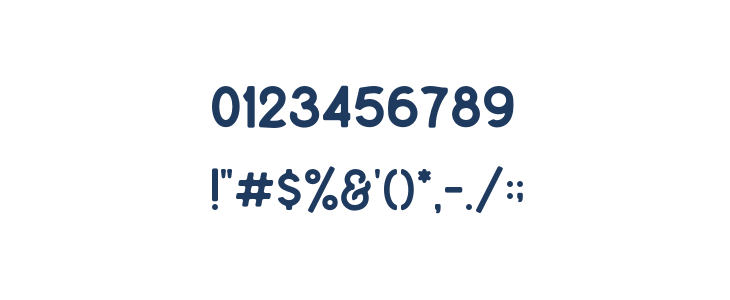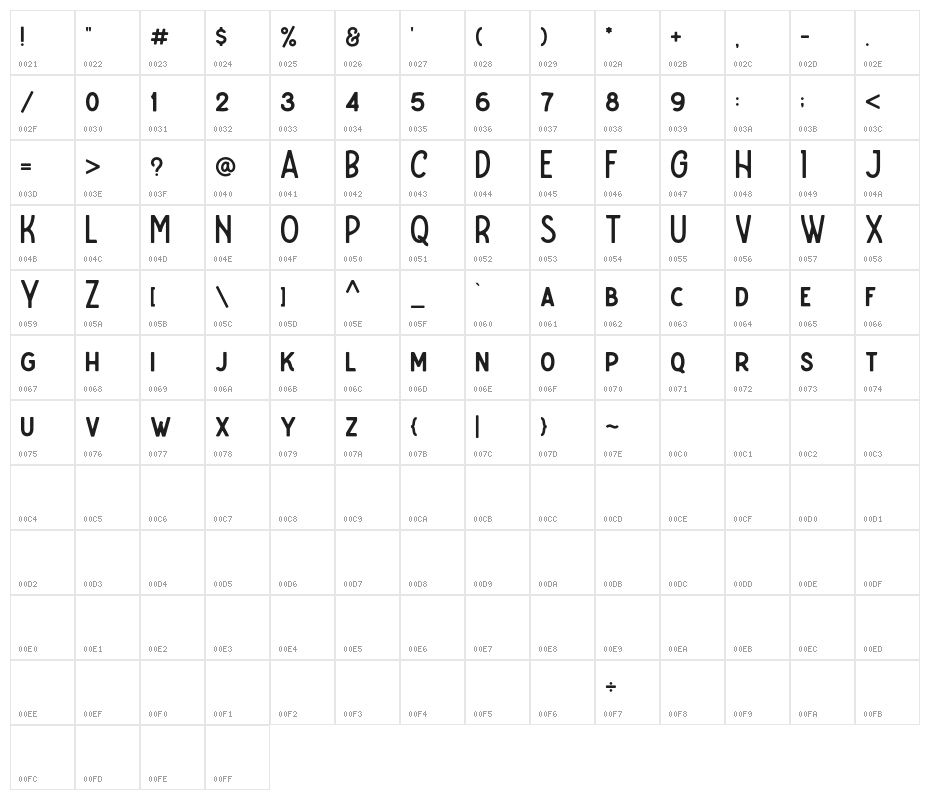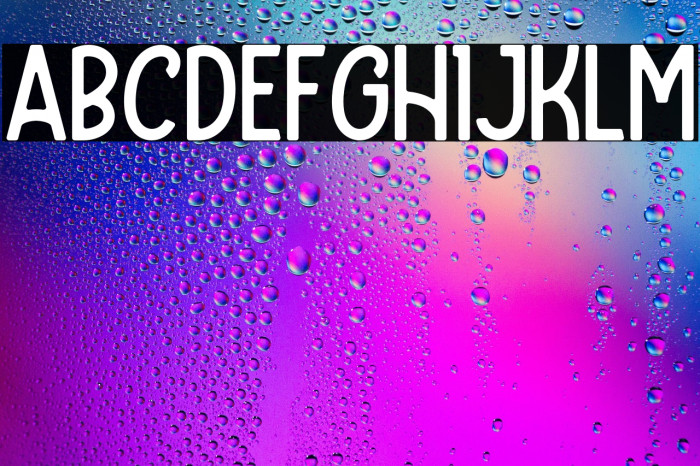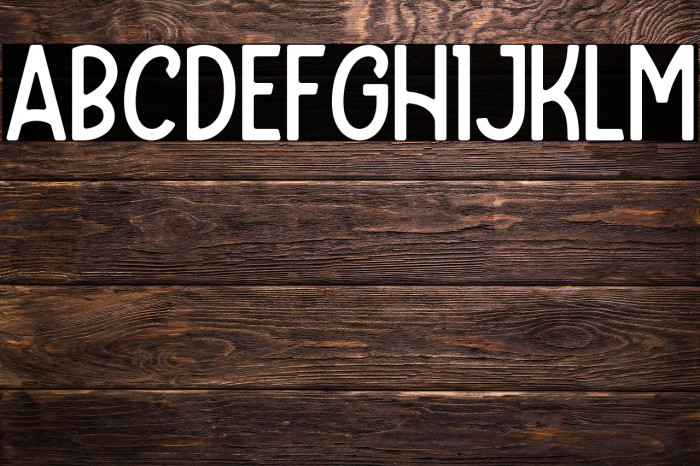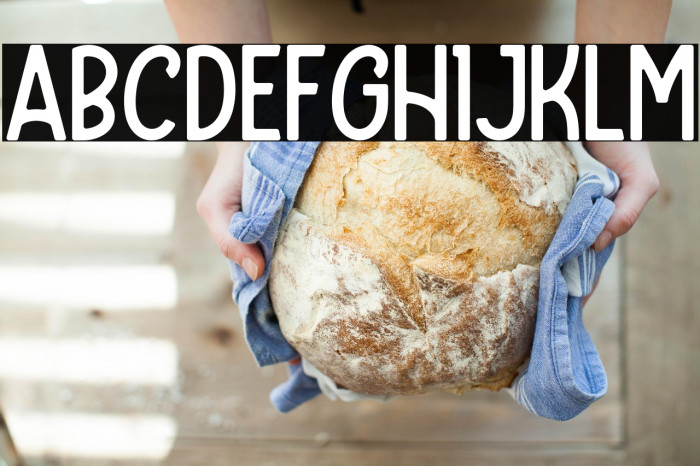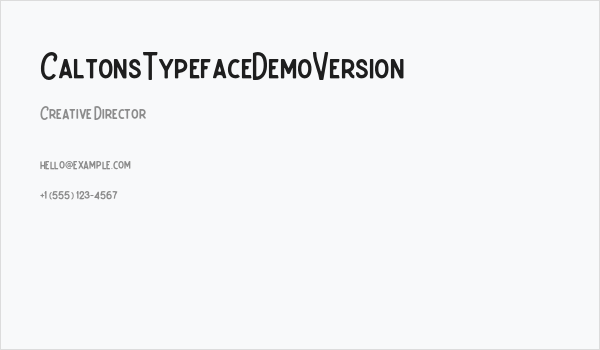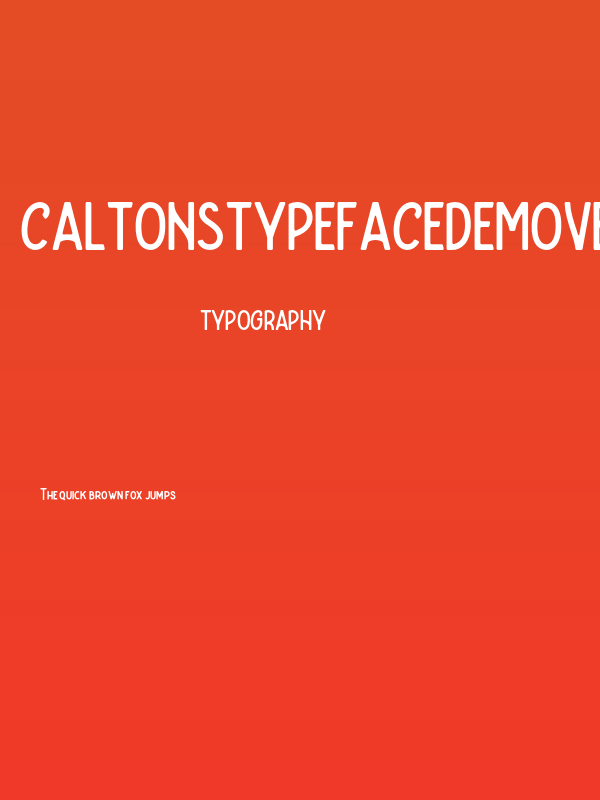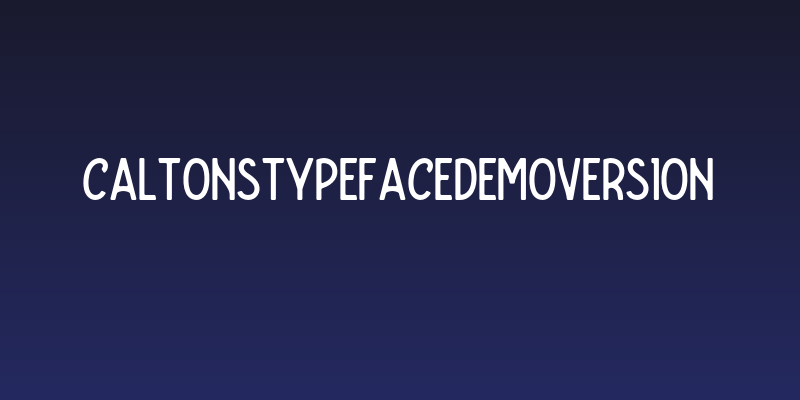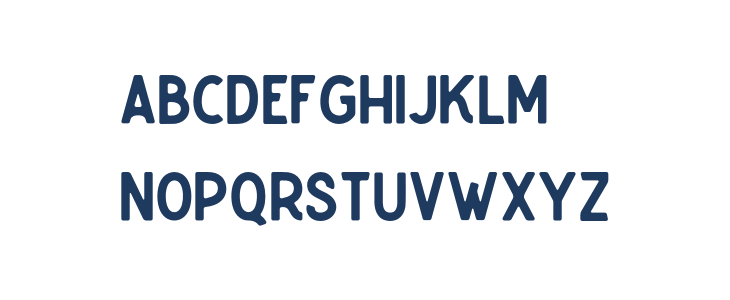
CaltonsTypefaceDemoVersion Font
CaltonsTypefaceDemoVersion Description
This font features a bold and playful style with rounded edges, giving it a friendly and approachable appearance. The characters are evenly spaced, providing a clean and organized look. The uppercase letters are slightly taller than the lowercase, maintaining a consistent width throughout. The numbers are clear and legible, matching the overall style of the alphabet. Special characters are included, maintaining the same playful and bold aesthetic. This font is versatile, suitable for both digital and print media, and can be used to add a touch of personality to any project.
| Overall Style | Playful |
| Proposed Projects | Ideal for children's books, playful branding, posters, and social media graphics. |